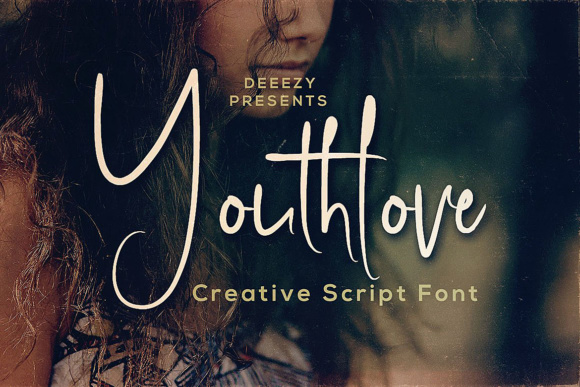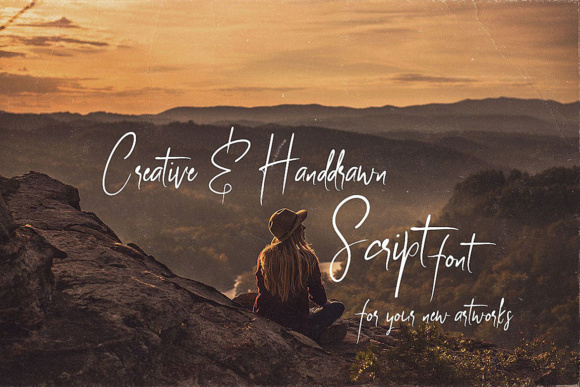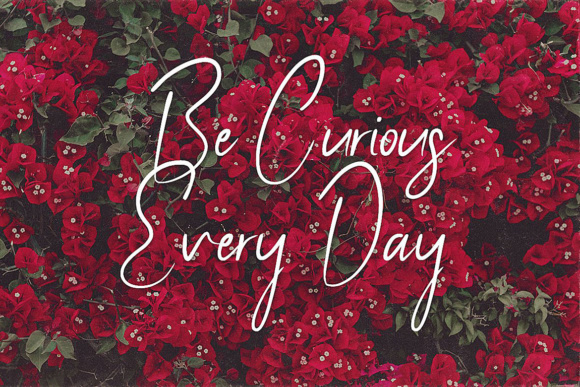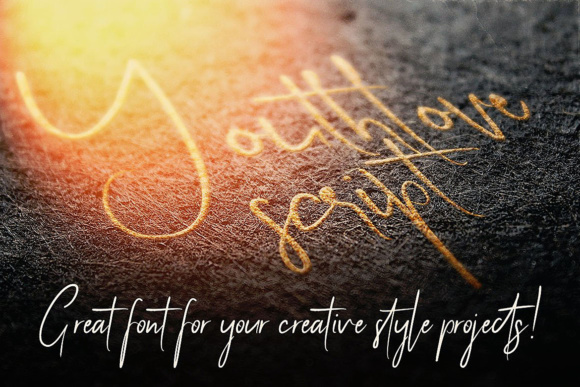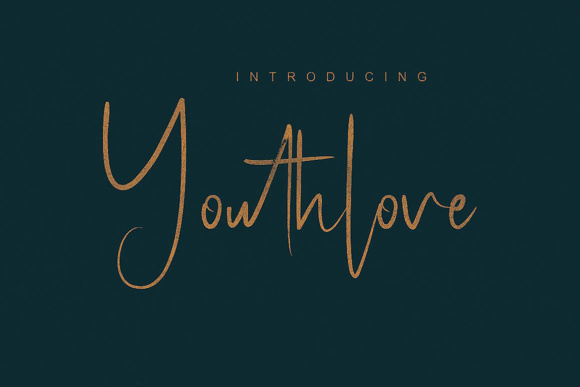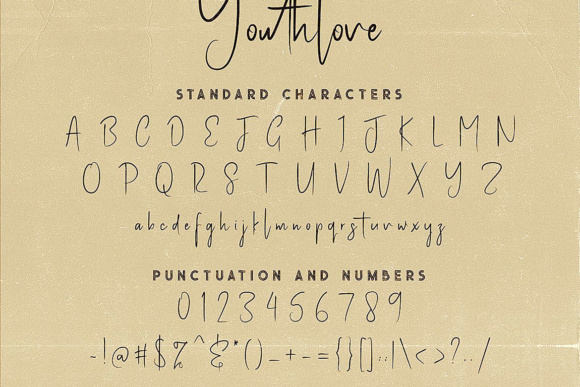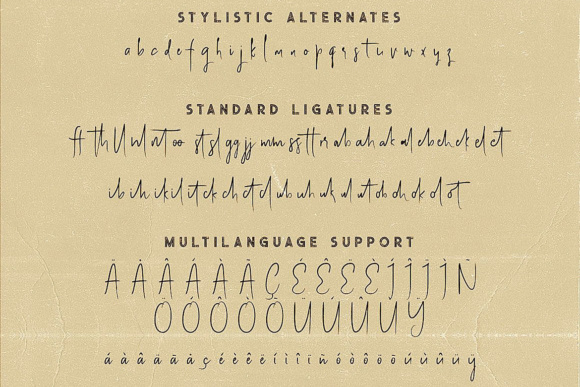
Youthlove Font
About Youthlove Font
The Youthlove is a creative and handwritten style script font, perfect for every design that needs a unique typeface.